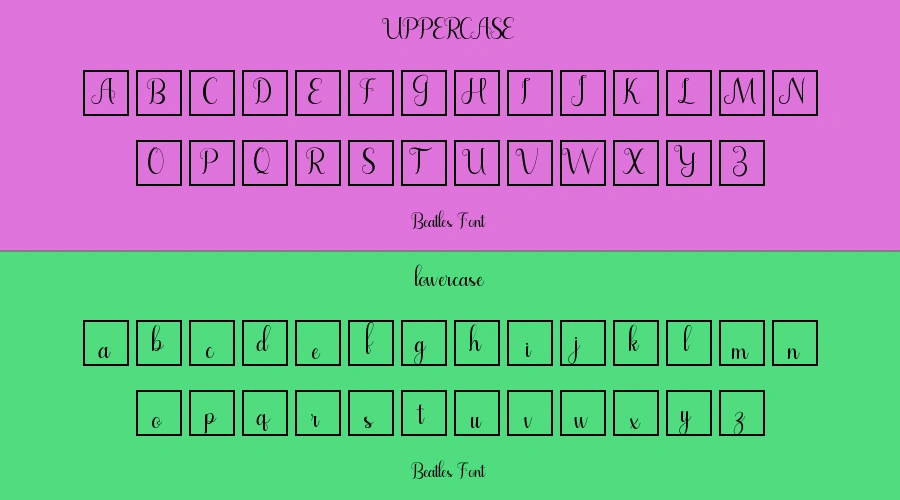
About Beatles Font
When typographic excellence matters most, Beatles Font delivers through its thoughtful blend of calligraphic strokes and functionality. Specially crafted for brand guidelines, it offers the impact and reliability required for sophisticated design work. Every detail serves a purpose.
The character set showcases thoughtful details like tapered strokes alongside functional initial forms. This proves especially valuable in promotional materials, where detail retention directly influences results. Particular attention was paid to descender depth and user perception during development.